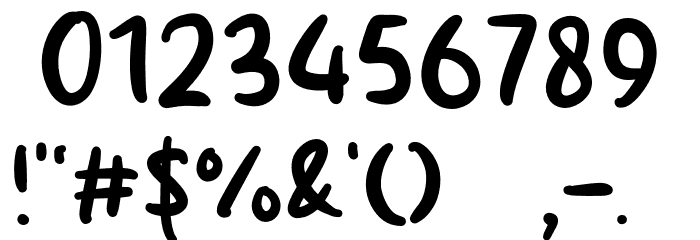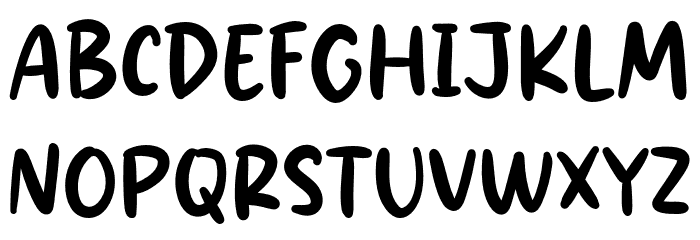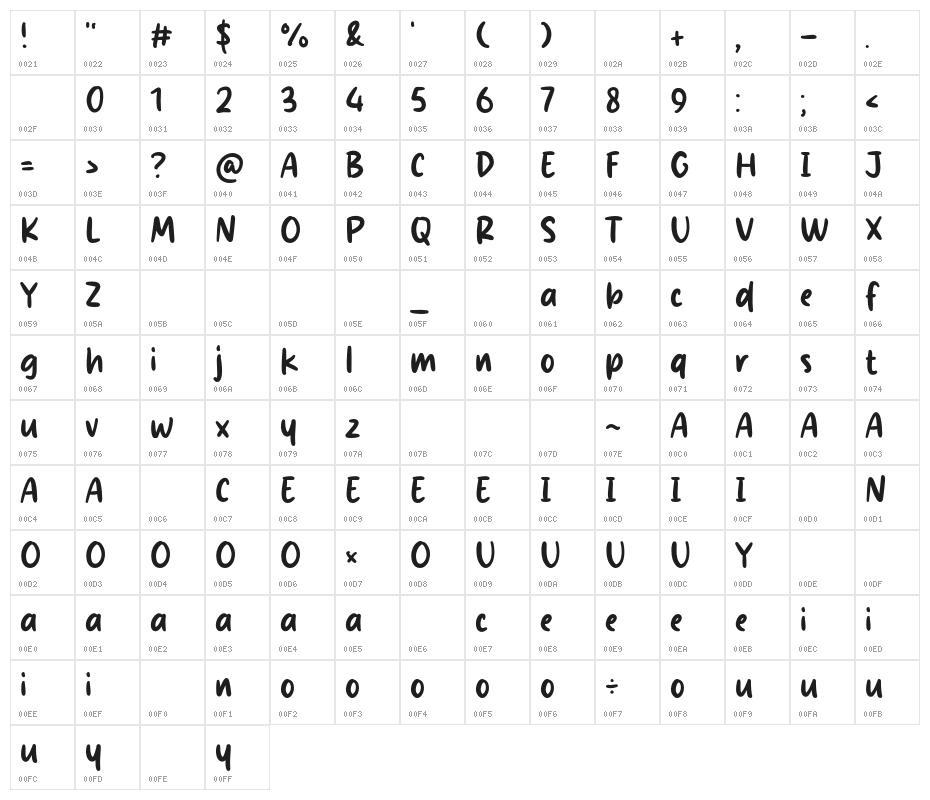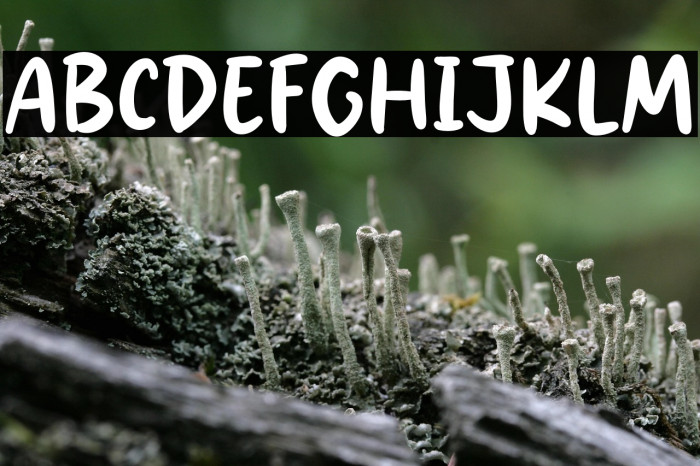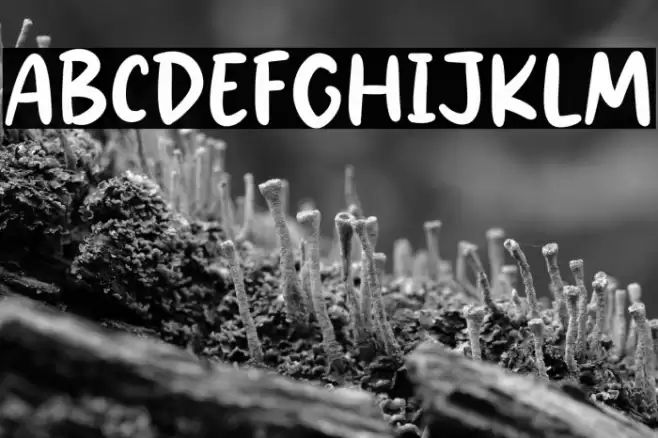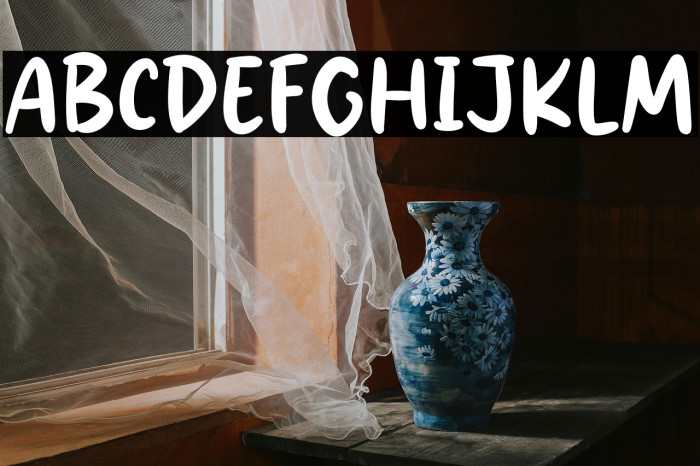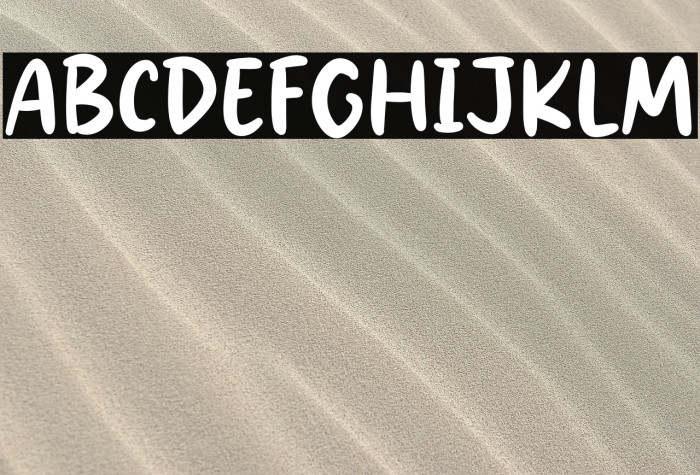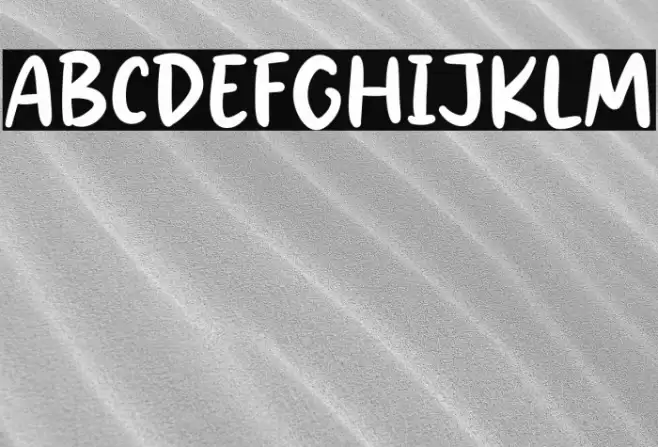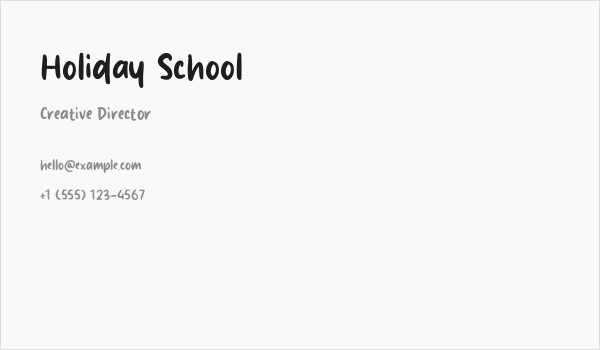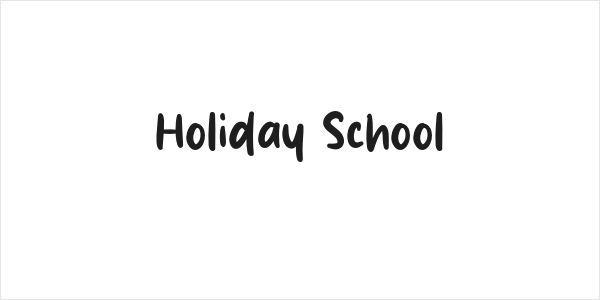
Holiday School Font
Holiday School Description
This playful and informal font features a handwritten style with smooth, rounded edges and a casual appearance. The characters are bold and slightly irregular, giving them a friendly and approachable feel. The uppercase and lowercase letters maintain a consistent style, with a slight slant that adds to the dynamic look. Numbers and special characters are designed to match the overall aesthetic, making the font versatile for various uses. The font's design is reminiscent of casual handwriting, making it suitable for projects that require a personal touch.
| Overall Style | Casual, Playful |
| Use Case | Headlines, Logos, Informal Text |
| Proposed Projects | Ideal for children's books, greeting cards, playful branding, and informal invitations. |